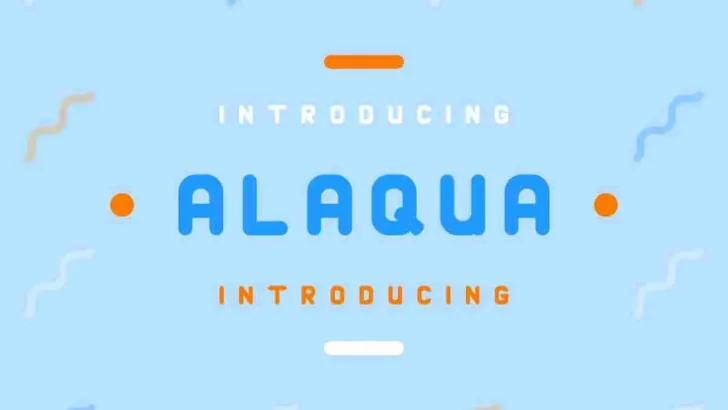
Alaqua Sans Serif Display Fonts
Alaqua ! This is a Sans-Serif font with many usages. The Glyph are made smooth. It looks awesome for any food packaging